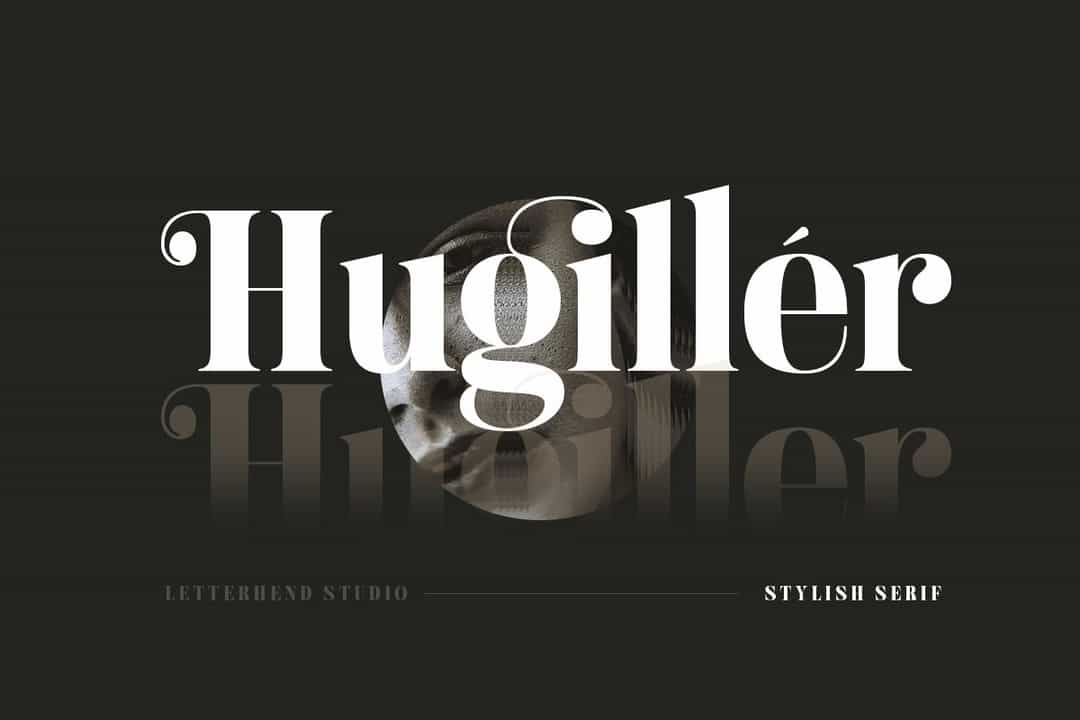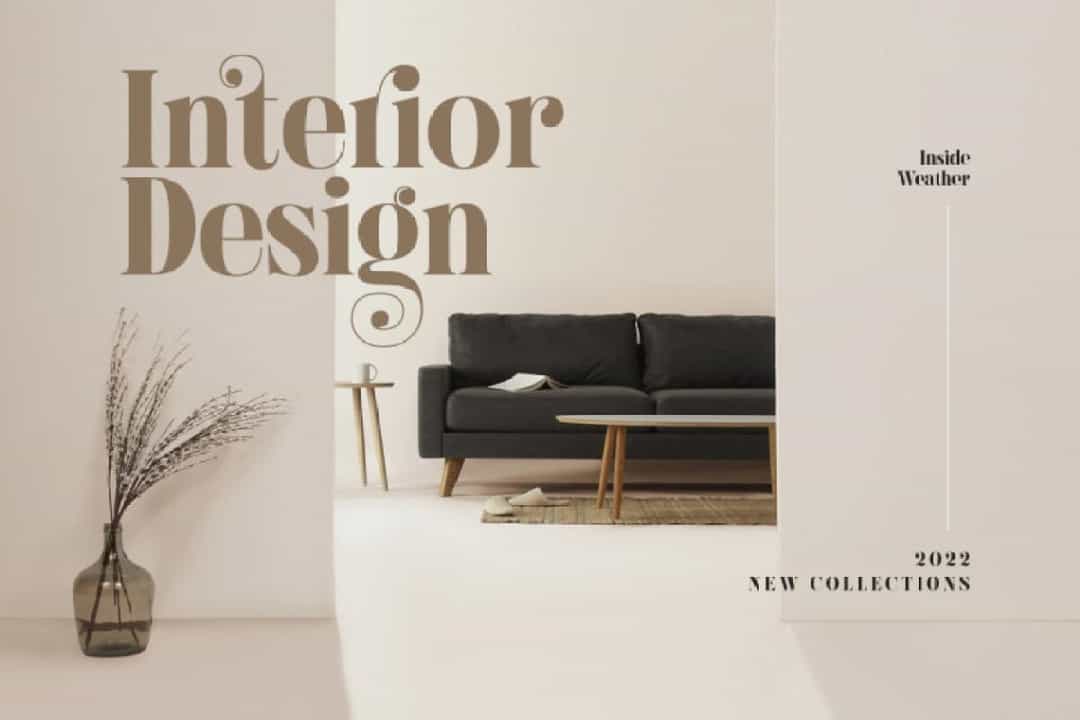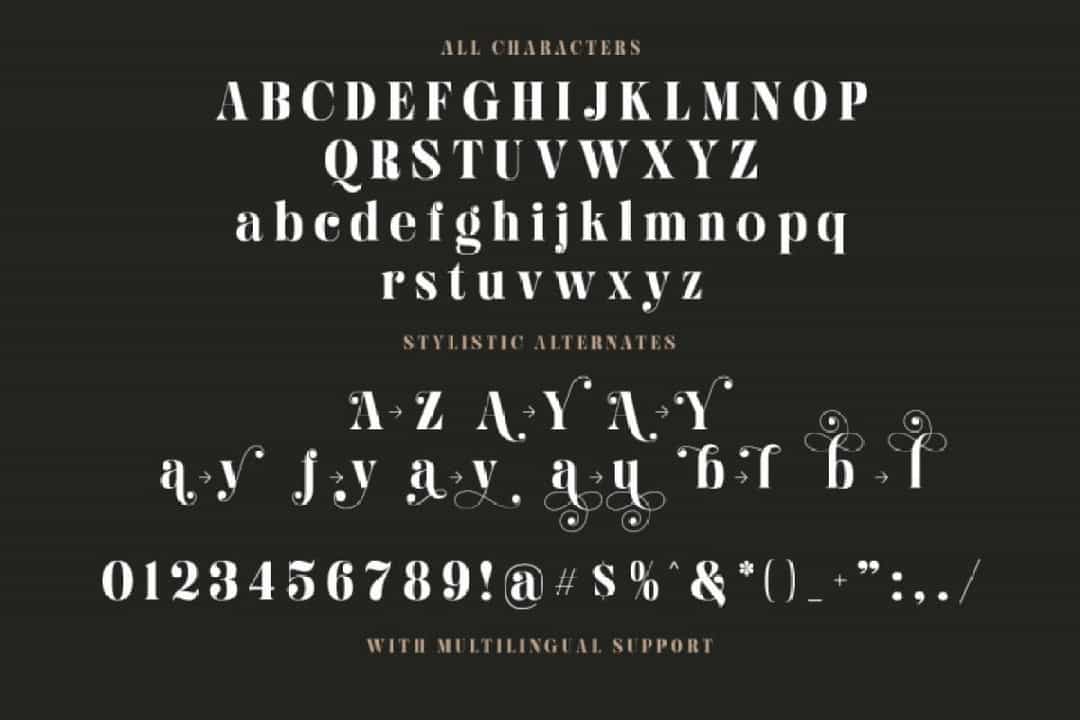
Hugiller High Contrast Elegant Serif Font. What sets it apart is its distinctive ligatures which give an old-world, yet contemporary vibe while remaining elegant and timeless.